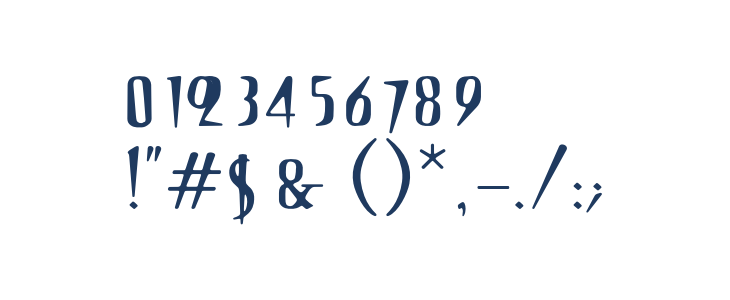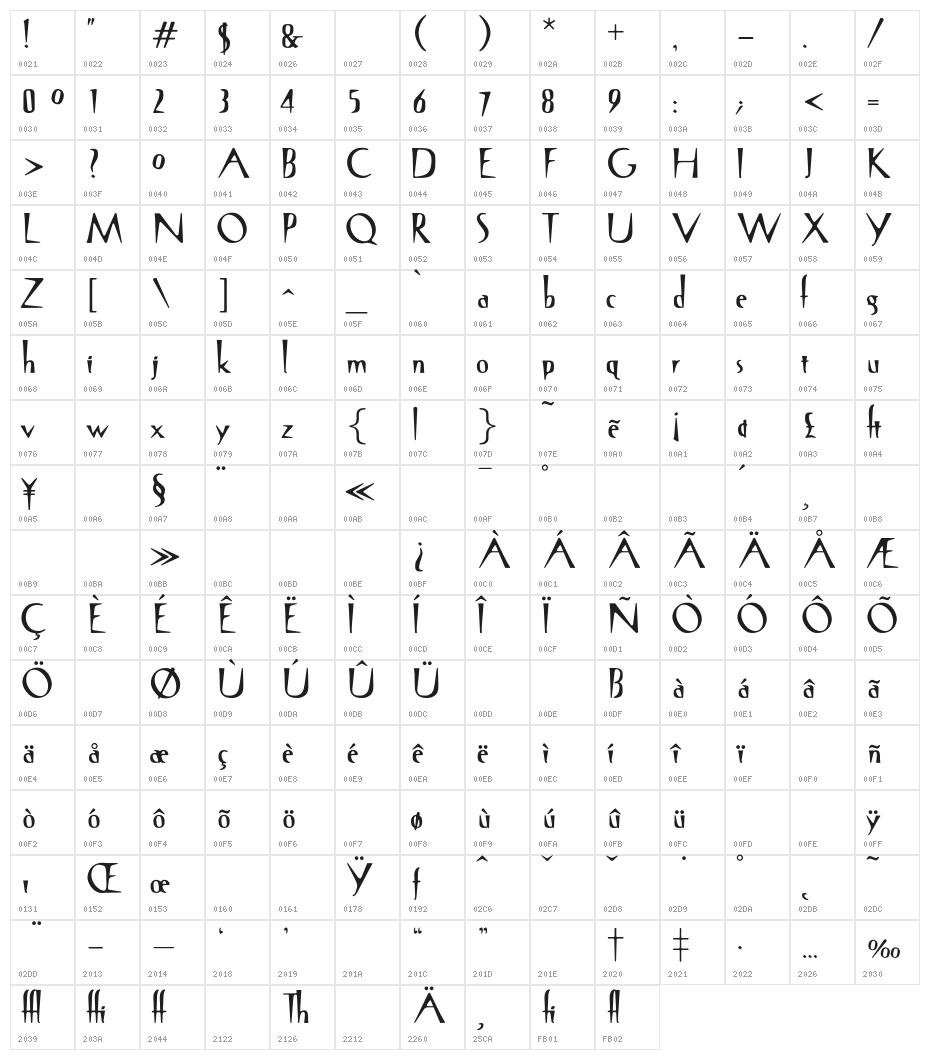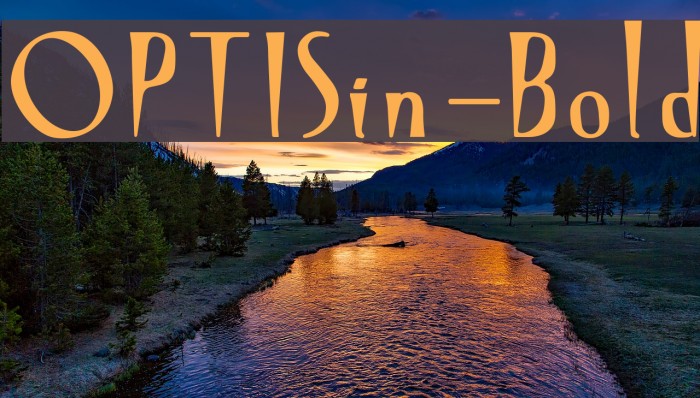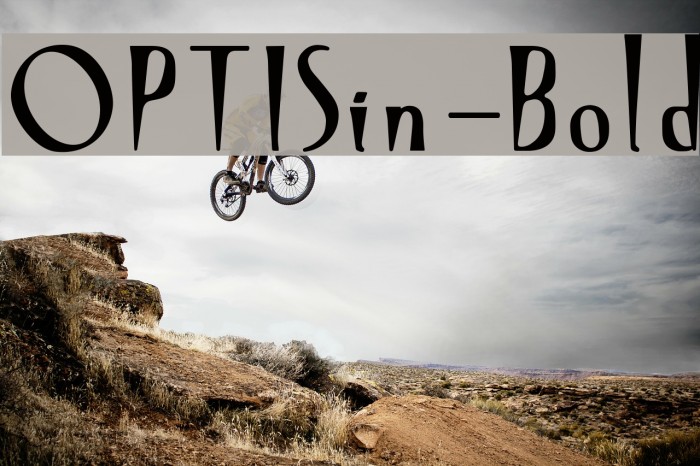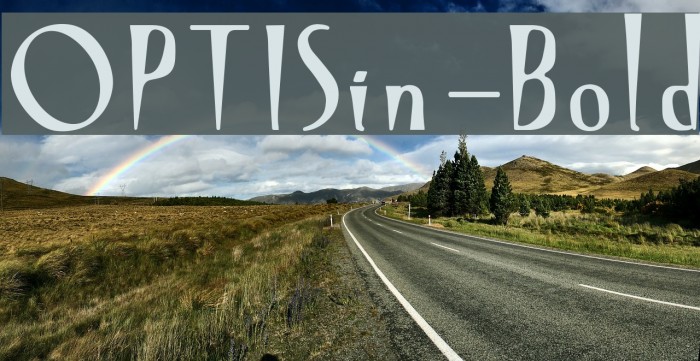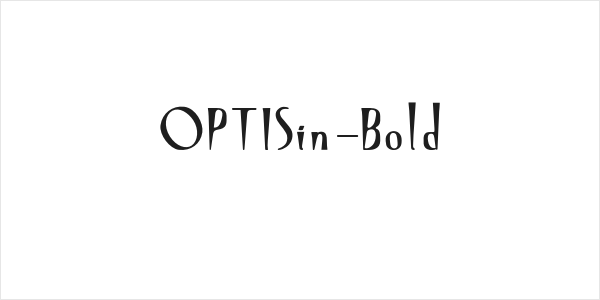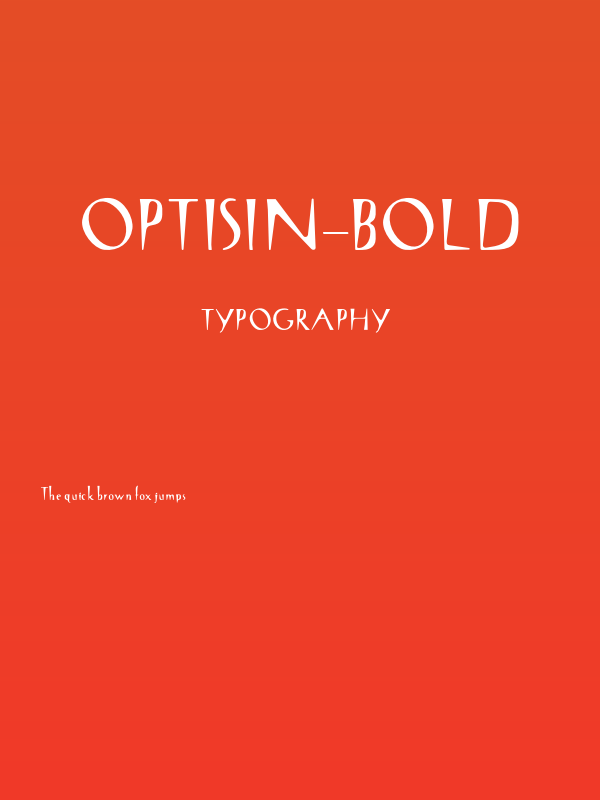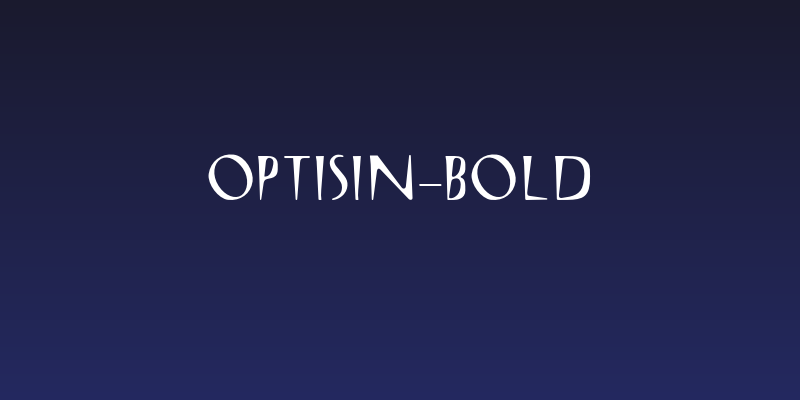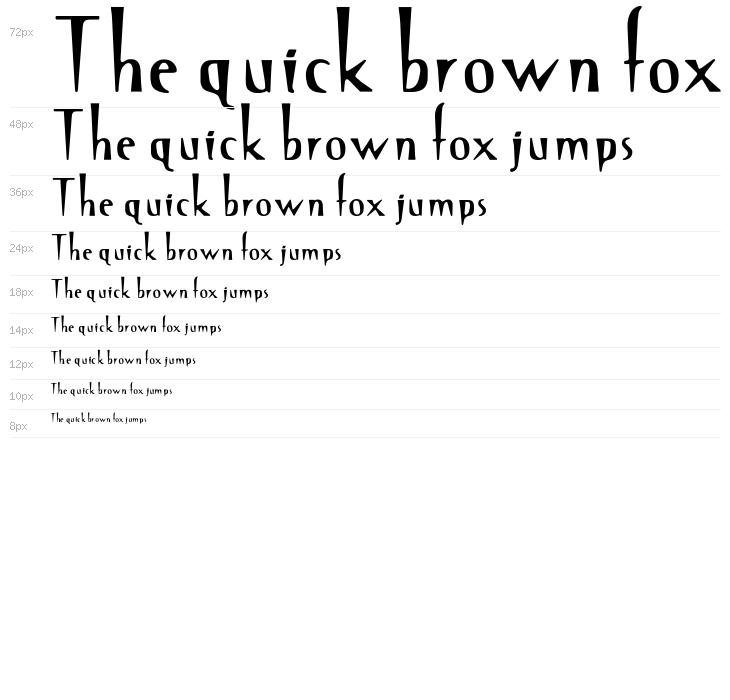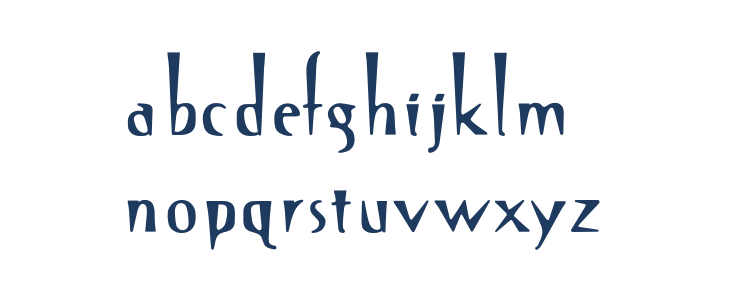
OPTISin-Bold Font
OPTISin-Bold Description
This font features a unique and artistic style with a playful yet elegant appearance. The characters are slightly elongated with a subtle curve, giving them a whimsical and dynamic look. The uppercase letters are bold and striking, while the lowercase letters maintain a consistent flow with a touch of flair. The numerals are distinct and easily readable, complementing the overall design. Special characters are creatively integrated, enhancing the font's versatility. This font is ideal for projects that require a touch of creativity and sophistication.
| Overall Style | Artistic, Playful |
| Proposed Projects | Perfect for creative branding, artistic posters, unique invitations, and eye-catching headlines. |